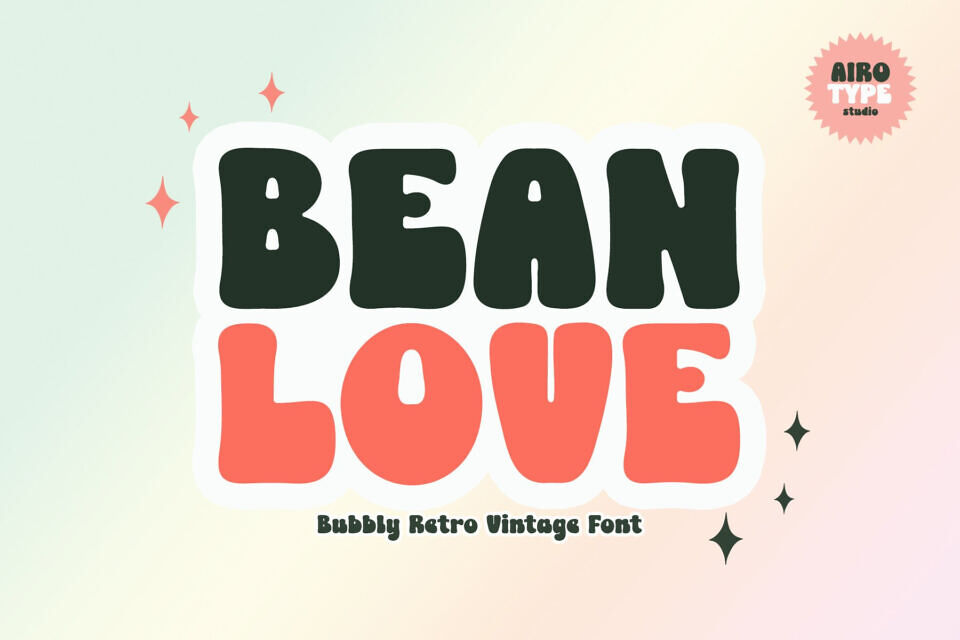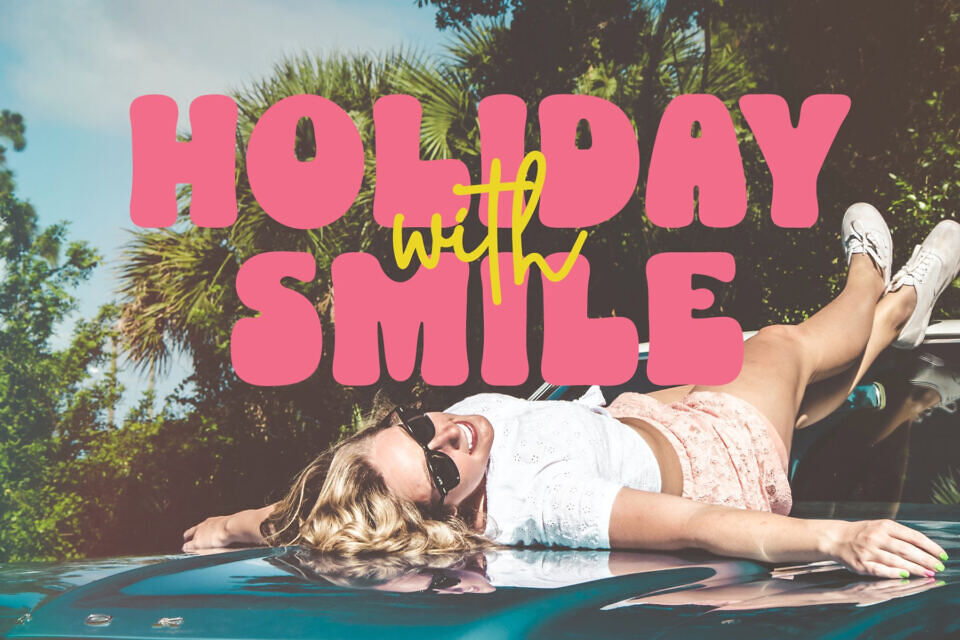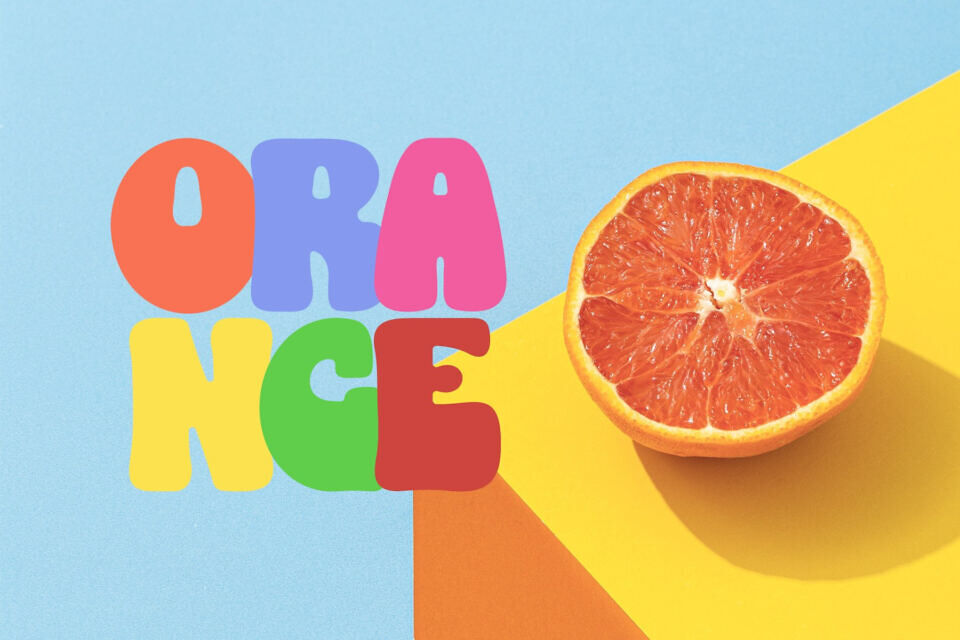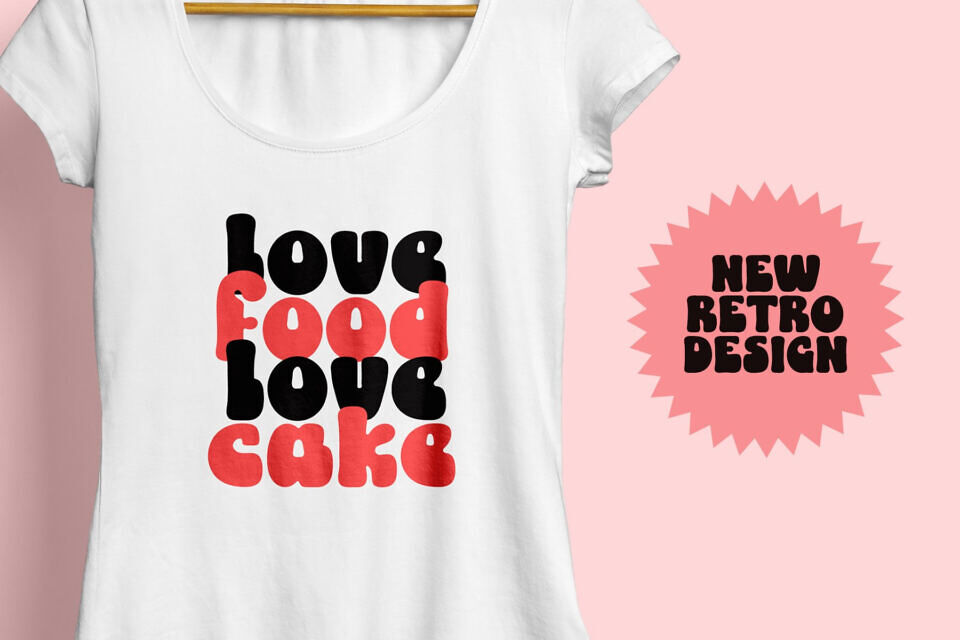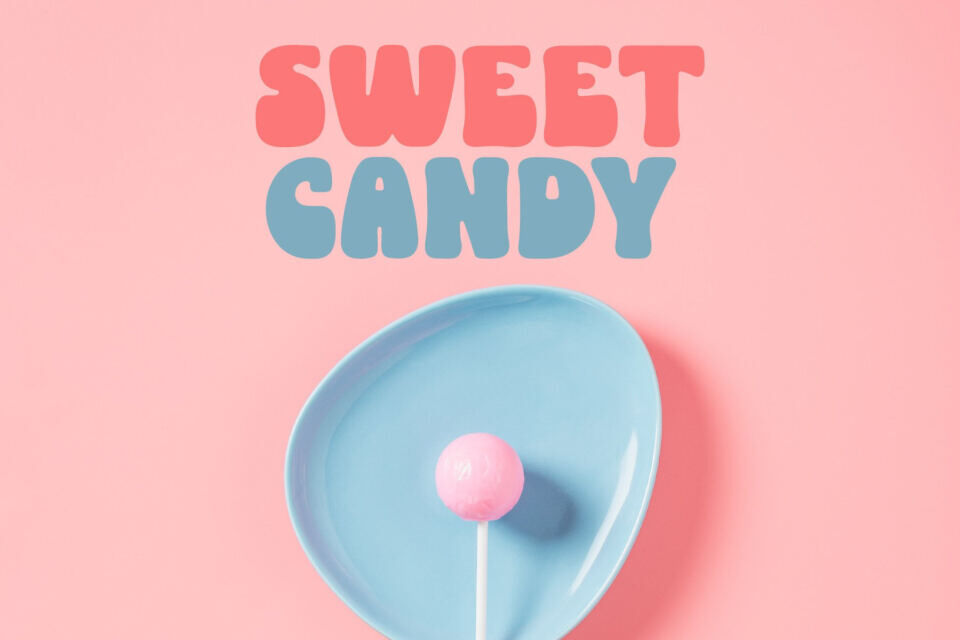
Bean Love is bold and fun retro display font. Masterfully designed to become a true favorite, this font has the potential to bring each of your creative ideas to the highest level!
This refined font is ideally suited for diverse projects, particularly those with a vintage aesthetic. Examples include logos, crafting projects, wedding invitations, branding materials, stickers, sublimation prints, quote designs, and a multitude of other applications.